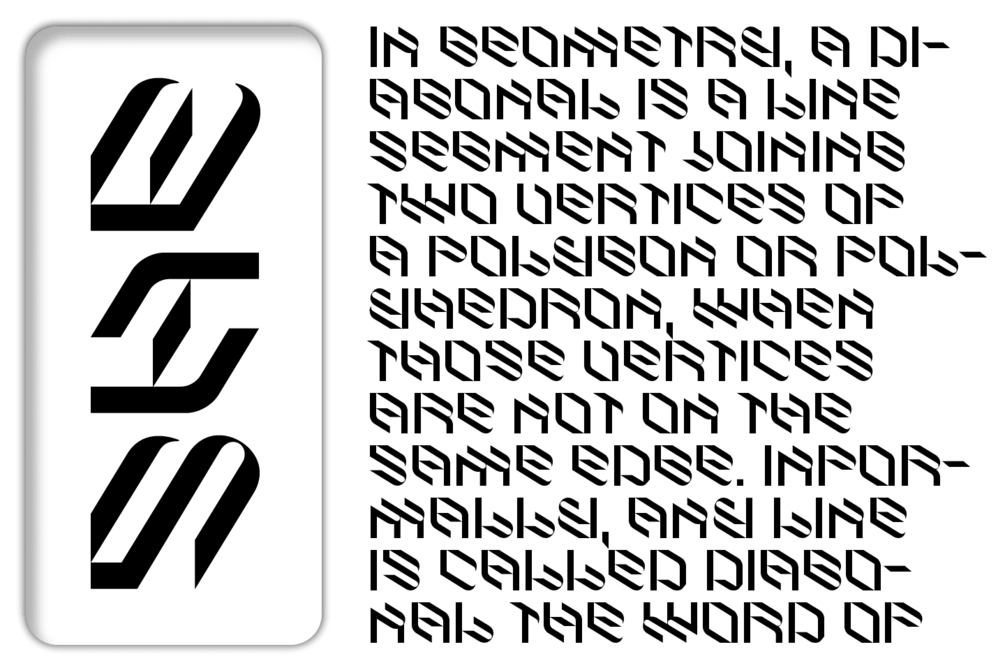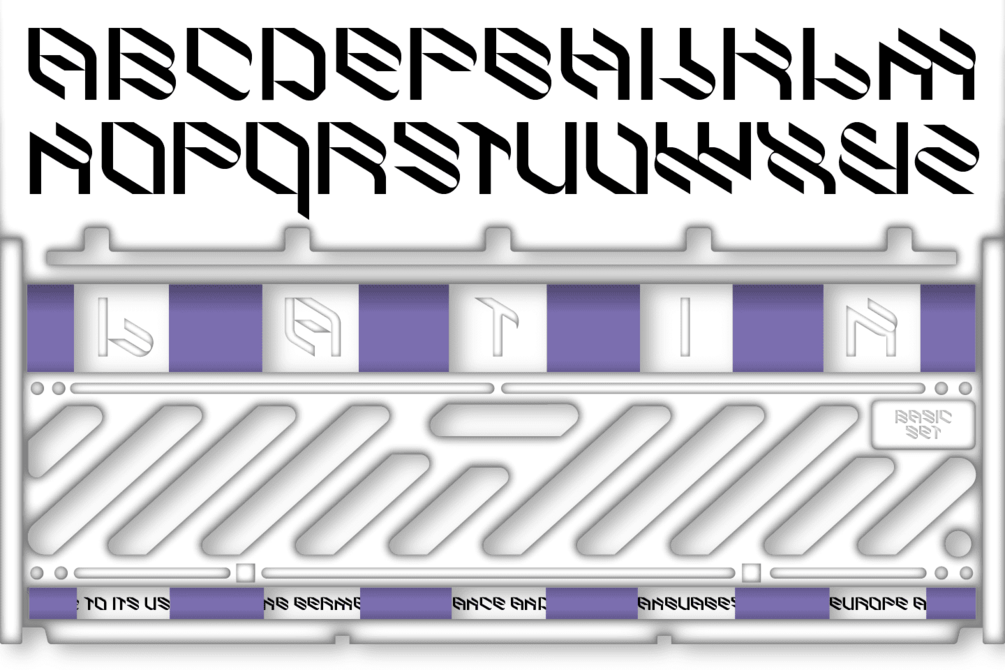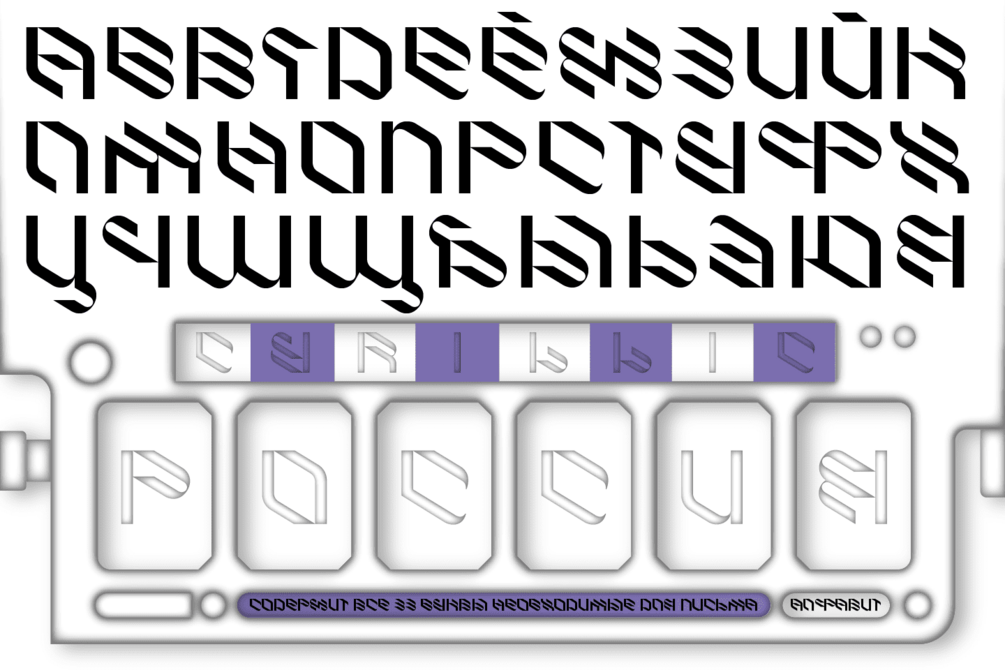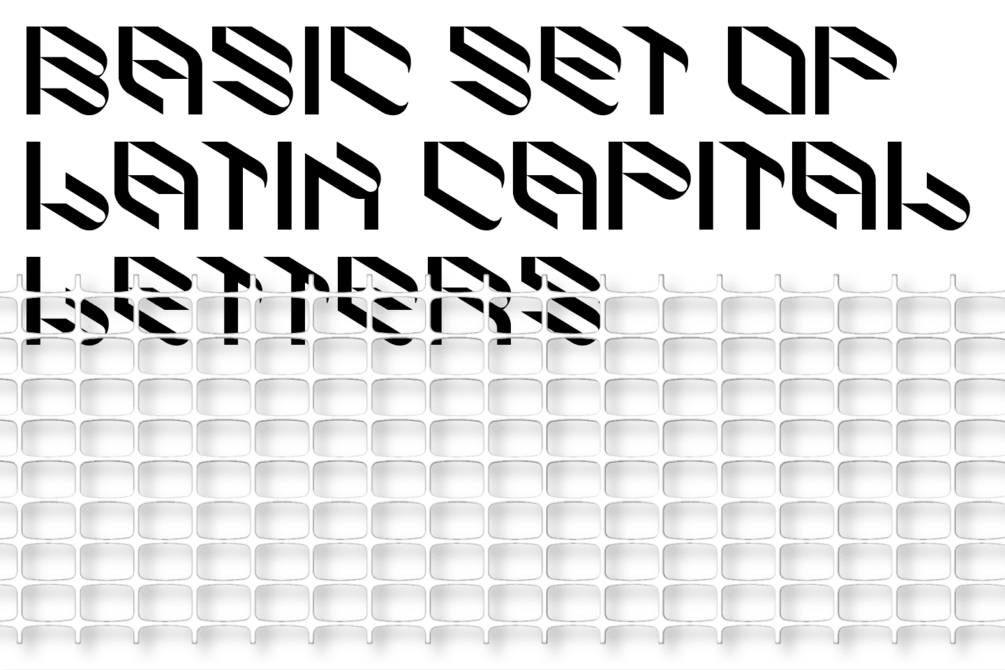
"ESKOS" font
Eskos — is the idea of what would happen if the letters were not built straight, but diagonally. Eskos is a diagonal font, this dictates both the graphics and the design of the characters. It is sharp, fast and accute, with light bends at the ends. There are several graphic techniques in the font: horizontal slices of diagonals, bends of vertical strokes and rounding of diagonal ones. Make posters and covers, websites and anything with it.
Basic and Extended Latin, Cyrillic, Diacritics, Numbers, Punctuation, Currencies, All Uppercase.